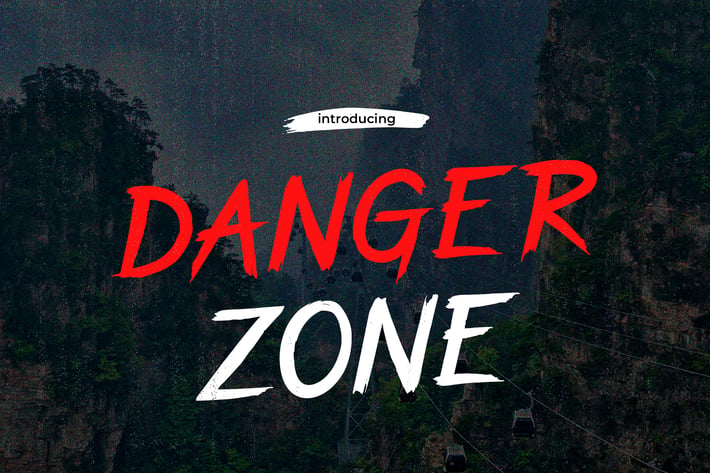
Danger Zone - Graffiti Font
Danger Zone, an urban graffiti art font, embodies the essence of modern street culture. Its edgy, sleek style brings your designs a raw yet refined touch. This versatile graffiti font is perfect for a wide range of projects, from vibrant posters and bold logos to impactful packaging and beyond. With its distinct street art aesthetic, Danger Zone effortlessly adds an urban flair to your creations.